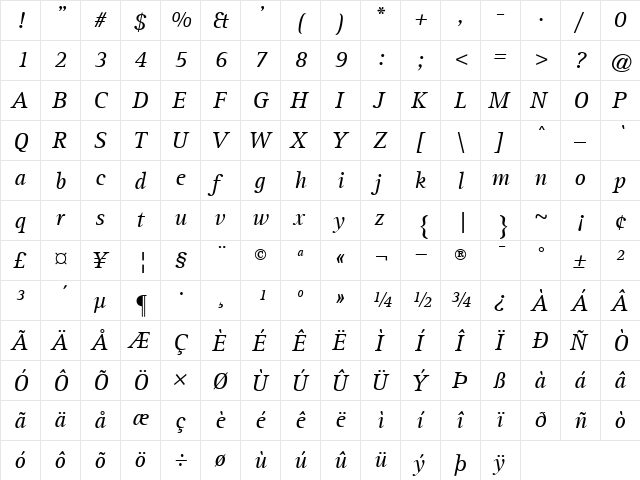
RotisSerif56 RomanItalic Font Preview
RotisSerif56 RomanItalic
RotisSerif56 RomanItalic Font Details
Design Context for RotisSerif56 Typeface
RotisSerif56 carries the refined structure of traditional serif typography, with bracketed terminals and considered proportions that communicate credibility and craft. The slanted form adds forward momentum and visual energy.